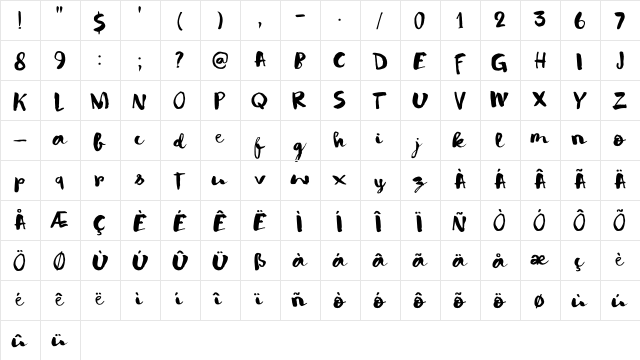
Symptomatic DEMO Regular
Design Context for Symptomatic DEMO Typeface
Symptomatic DEMO is a composed and adaptable typeface that performs quietly and consistently across a wide range of design contexts.